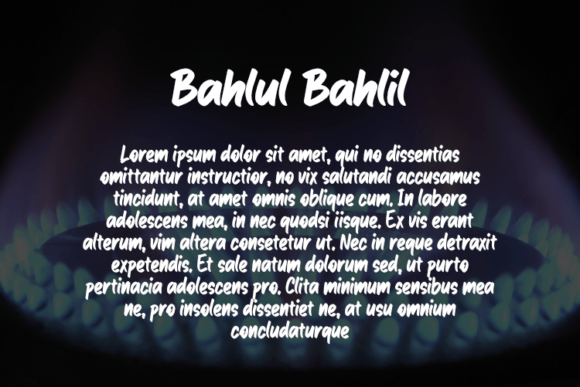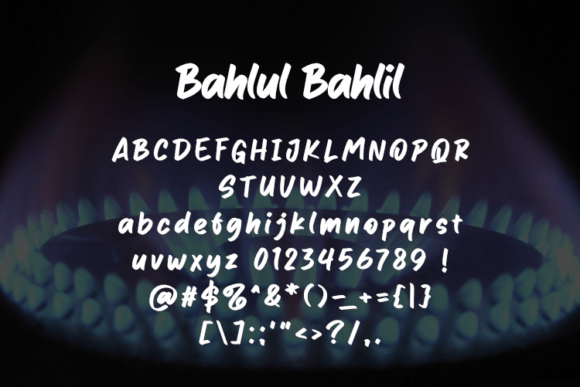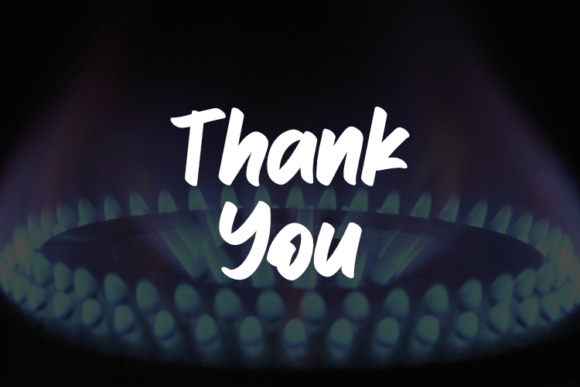
Introducing Bahlul Bahlil: Elevate Your Designs with Sophistication
In the world of design, typography plays a crucial role in conveying the message and aesthetic appeal of a project. For designers and crafters seeking a font that combines versatility, elegance, and seamless compatibility, Bahlul Bahlil emerges as a game-changer. This refined and versatile font is specifically crafted to enhance the aesthetics of your clothing and product designs, offering a sophisticated touch that elevates your creations to new heights.
Unleash Your Creativity with Bahlul Bahlil
Bahlul Bahlil is not just a font; it’s a creative tool designed to bring boundless freedom to your design process. Its compatibility with every imaginable design and seamless functionality across various software make it an indispensable asset for designers. Whether you’re working on t-shirts, merchandise, or any other product, Bahlul Bahlil ensures that your designs look impeccable and sophisticated.
Key Features of Bahlul Bahlil
- Versatility: Bahlul Bahlil boasts a versatile design that fits a wide range of projects, from casual wear to professional merchandise.
- Elegance: With its refined aesthetic, Bahlul Bahlil adds a touch of sophistication to any design, making it stand out.
Why Choose Bahlul Bahlil?
For designers and crafters looking to elevate their designs, Bahlul Bahlil presents itself as a must-have font. Its unique blend of elegance, versatility, and compatibility makes it an ideal choice for various projects. Here are a few reasons why Bahlul Bahlil should be part of your creative arsenal:
- Enhances Aesthetic Appeal: Bahlul Bahlil’s sophisticated design enhances the overall look of your projects, making them more appealing to your audience.
- Boosts Creativity: With its versatile nature, Bahlul Bahlil encourages creativity, allowing designers to experiment with different styles and ideas.
Applications of Bahlul Bahlil
Bahlul Bahlil’s versatility makes it suitable for a wide array of applications, including but not limited to:
- Fashion Design: Perfect for designing logos, branding, and typography for clothing lines.
- Merchandise: Ideal for creating appealing typography on merchandise such as t-shirts, mugs, and bags.
- Graphic Design: Useful for various graphic design projects that require elegant and versatile typography.